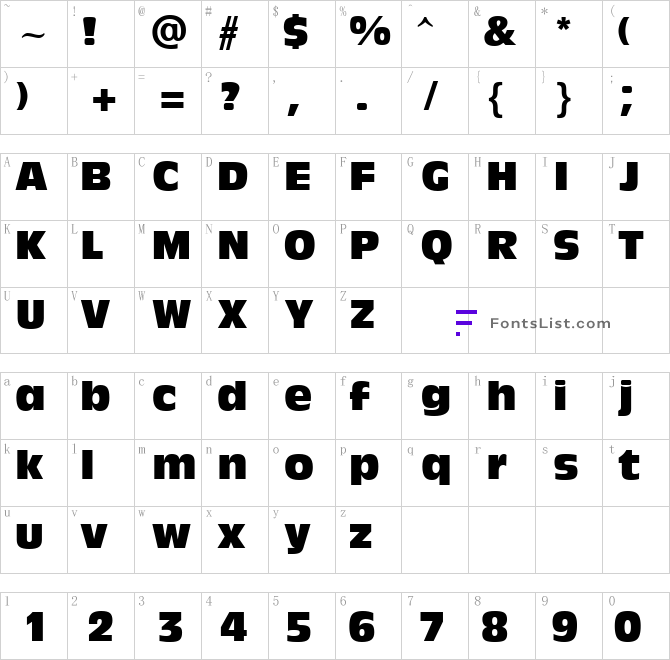
- Font Name:Antique Olive Compact
Antique-Olive-Compact.ttf is a very beautiful artistic font, Antique-Olive-Compact.ttf is widely used in the design and printing of various books and pictures,Antique-Olive-Compact.ttf has a strong visual impact,Antique-Olive-Compact.ttf is a commonly used font in newspapers, magazines and books, and is used in posters, e-commerce Poster design, store design, logo design, font design and other fields.Antique-Olive-Compact.